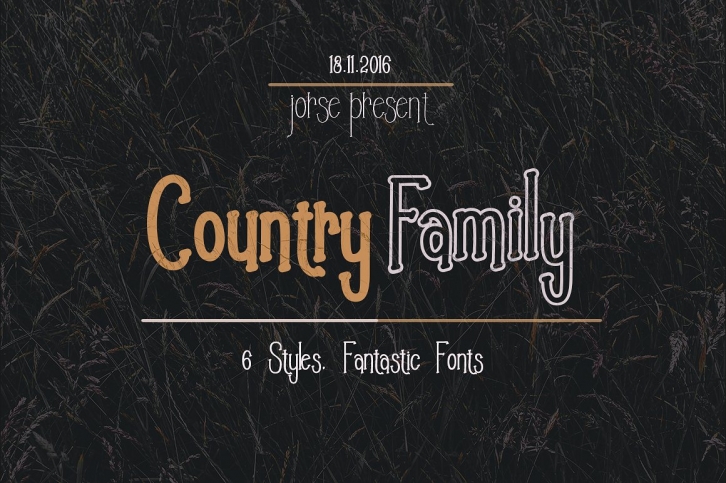
Country Family is a gorgeous font that was realeased on August 9, 2017. The font can be used in many style contexts and design environments. Perfect for invitations, magazines, websites, logos, and more! It was designed by roiyani and the file size is 6.97 MB. Thanks for checking out this font!